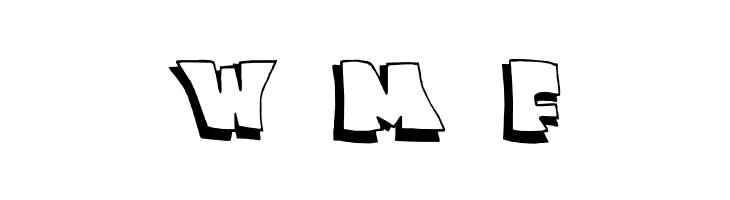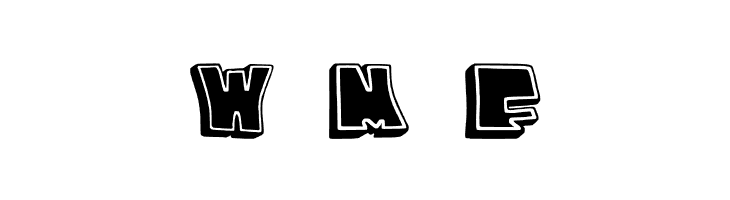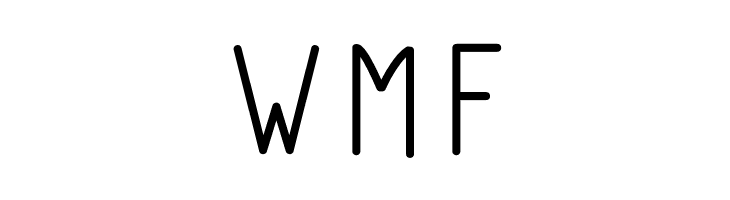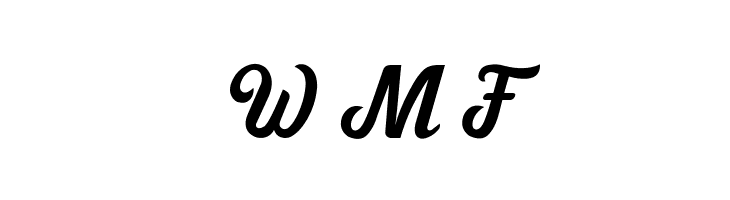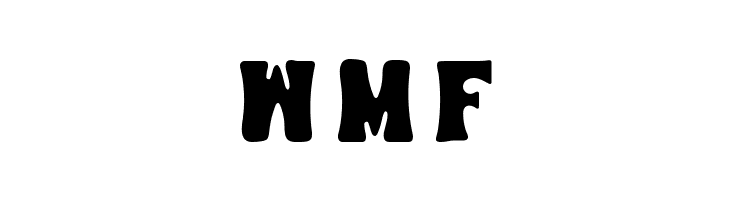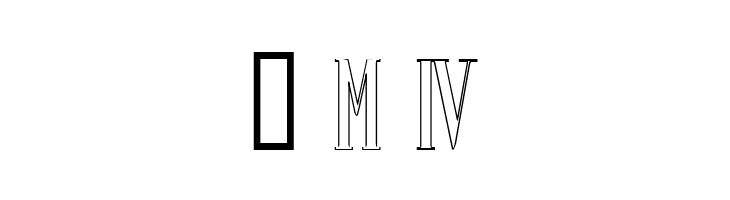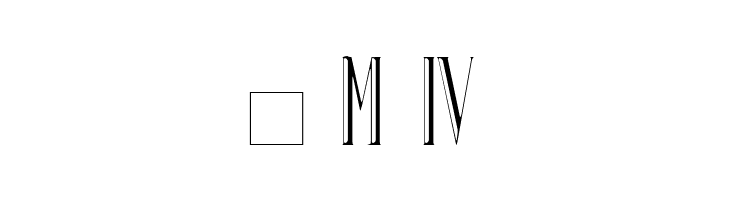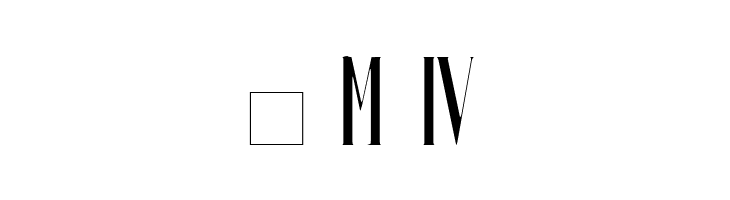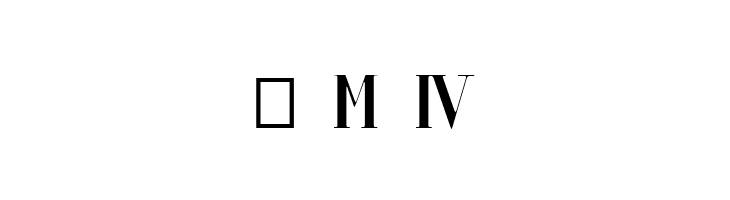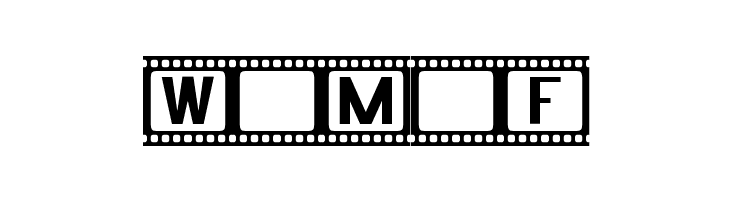
A bold, 3D font with a vintage, geometric style perfect for striking headlines.
A bold, narrow font with a strong, authoritative presence.
A bold, geometric font with a modern and assertive style.
A bold, geometric font with Art Deco influences and decorative elements.
A modern, clean font with consistent stroke thickness and balanced spacing.
A hand-tooled font with a three-dimensional, engraved appearance.
An elegant outline font with a classic Roman numeral style.
A classic, high-contrast serif font with a modern twist.
Playful and bold rounded font.
A playful, hand-drawn font with rounded, narrow characters and a modern, friendly vibe.
A bold, impactful font with strong, thick strokes and a modern geometric influence.
A bold, playful font with a shadow effect, ideal for dynamic and fun designs.
A bold, playful font with a quirky, hand-drawn aesthetic.
A bold, decorative font with a playful, three-dimensional style.
A playful, hand-drawn style font with bold, sketch-like outlines.
A bold, playful font with a 3D block-like appearance.
A bold, modern font with a vintage touch, perfect for impactful headlines.
A bold, playful font with rounded, bouncy characters.
A bold, decorative font with heart and floral embellishments.
A playful, bold outline font with a chunky, hollow design.
A bold, playful font with thick, rounded strokes and a retro vibe.
A playful, hand-drawn font with whimsical and uneven letterforms.
A dynamic and energetic script font with flowing, cursive letterforms.
A dynamic, handwritten script font with a playful and energetic style.
A bold, angular font with a dynamic and edgy style.
A bold, three-dimensional font with geometric lines and shadows.
An elegant, flowing script font with smooth, cursive lines and graceful curves.
A bold, geometric font styled like a classic film strip, perfect for cinematic themes.
A clean, modern font with smooth, rounded strokes and excellent readability.
A bold, filled font with a three-dimensional, vintage-inspired style.
A bold, three-dimensional font with a vintage, retro style and shadow effect.
A bold, textured font with a vintage 3D effect, perfect for impactful designs.
A bold, elegant script font with flowing curves and high contrast.
A bold, flowing script font with elegant cursive letterforms.